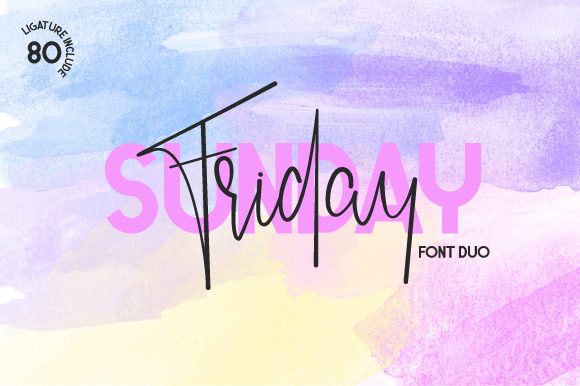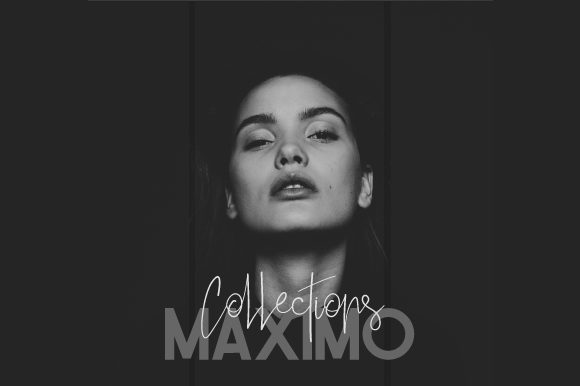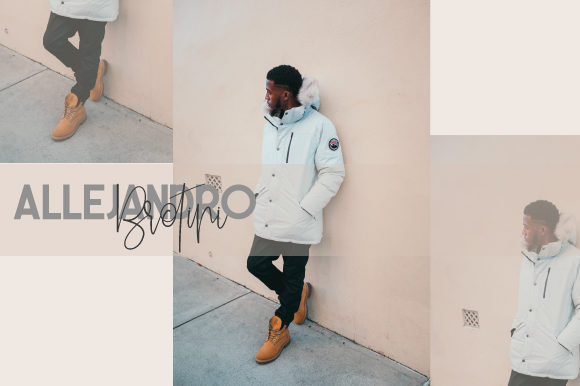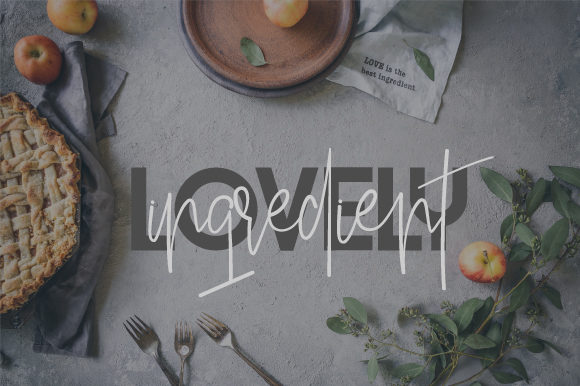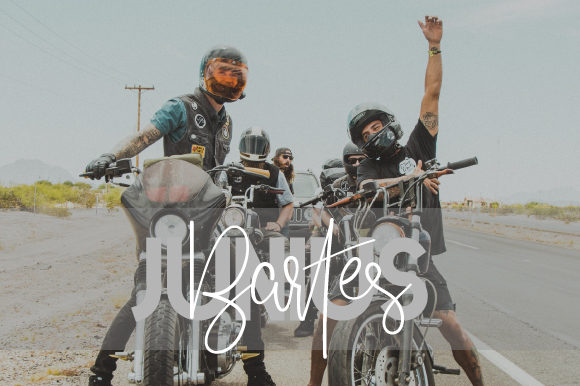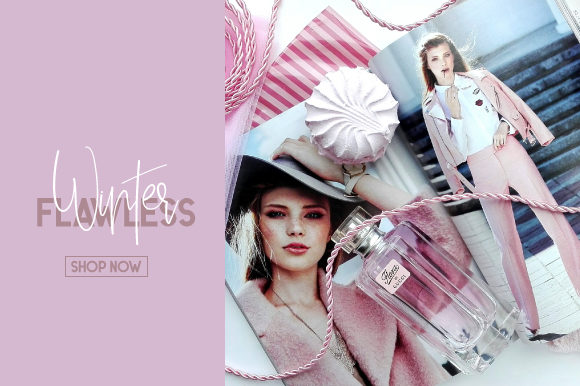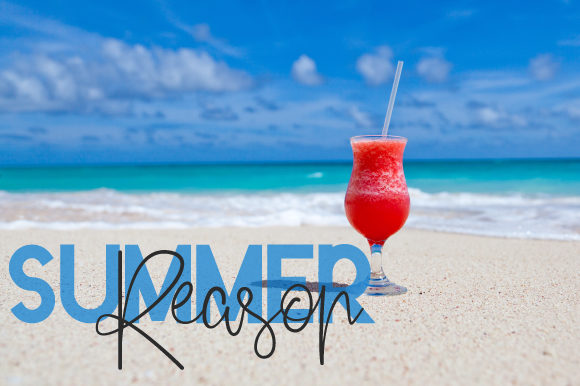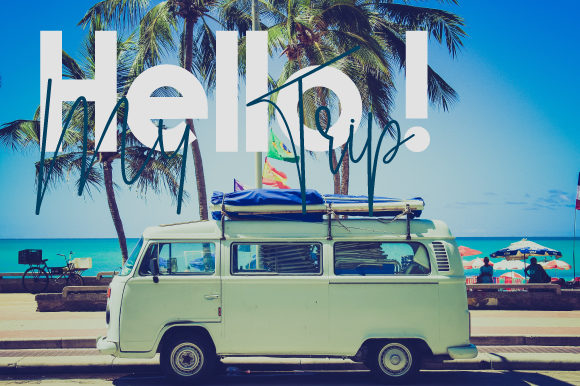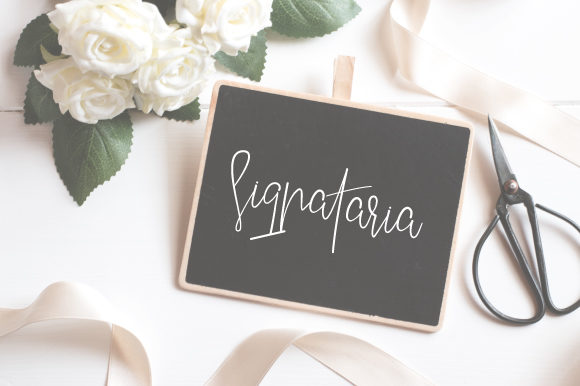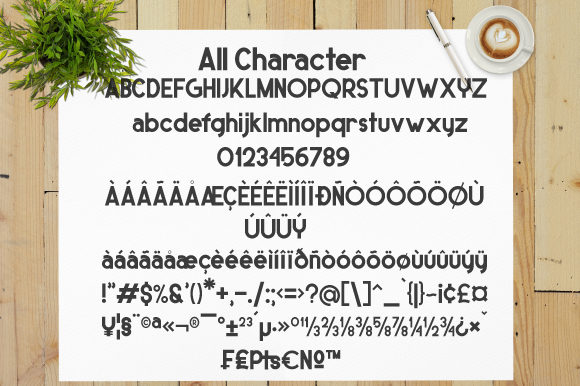
Friday Sunday Duo Font
About Friday Sunday Duo Font
The Friday Sunday is an amazing font duo. It includes a classy, contemporary pair of script and sans-serif fonts and offers a beautiful typographic harmony for a diversity of design projects, including logos & branding, wedding designs, social media posts, advertisements & product designs.